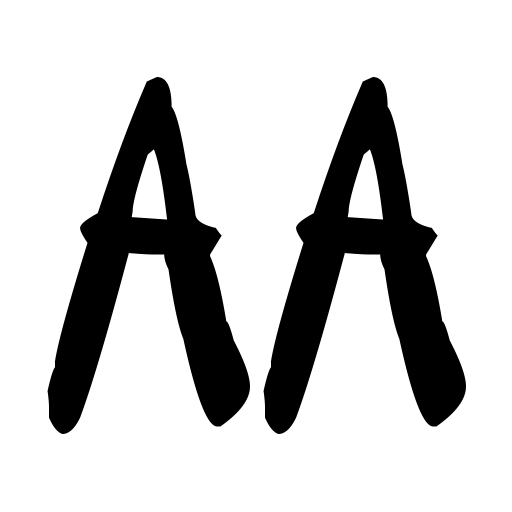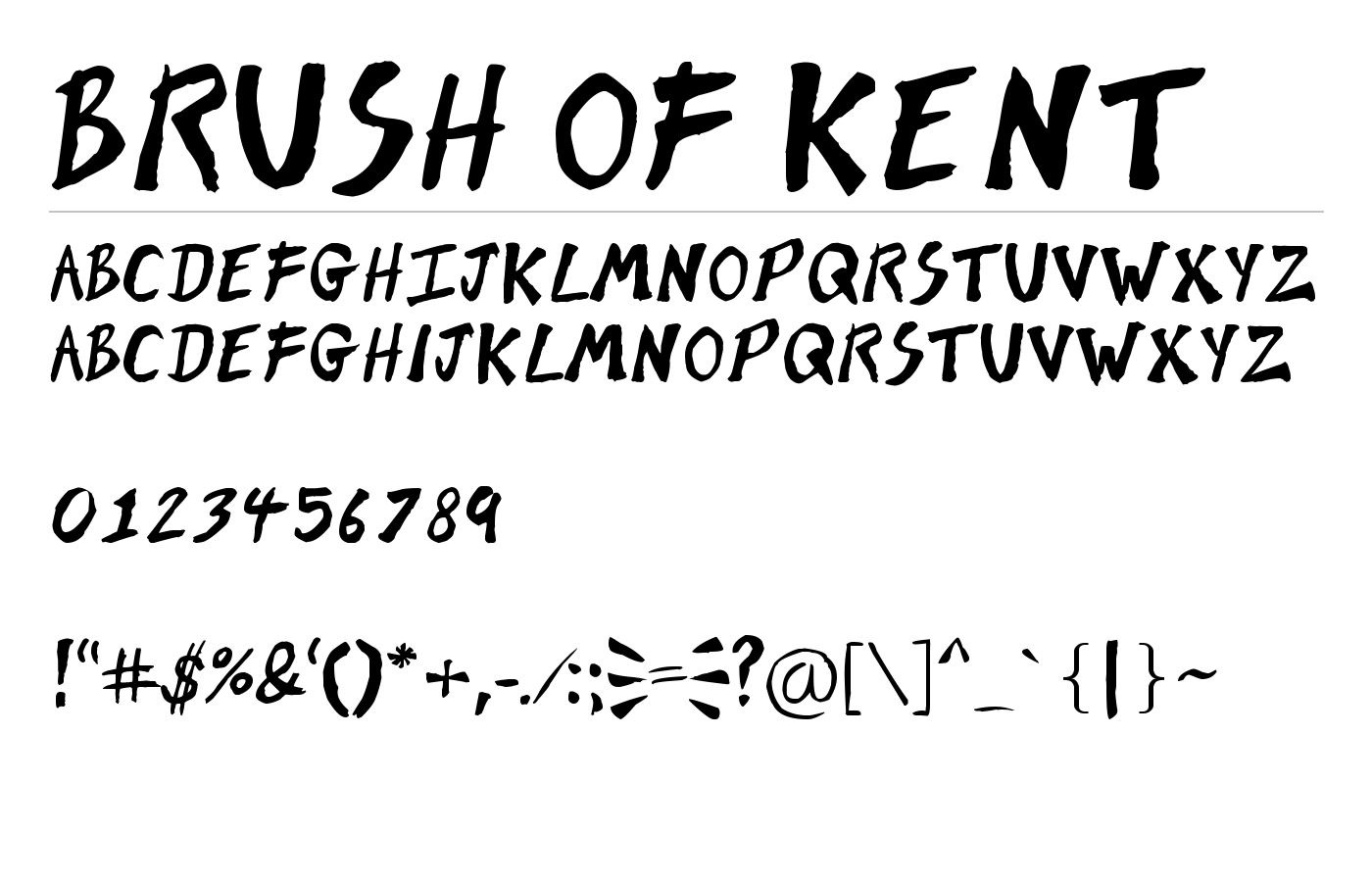
Brush of Kent is a lively, bold brush script font that showcases an organic, hand-painted feel with textured strokes and dynamic, uneven edges. Its energetic and informal style makes it perfect for creative projects, casual branding, and eye-catching headlines that want to convey personality and a handcrafted touch. This font works well in designs that seek an authentic, artistic, and approachable vibe.
Brush of Kent Font
About Brush of Kent Font